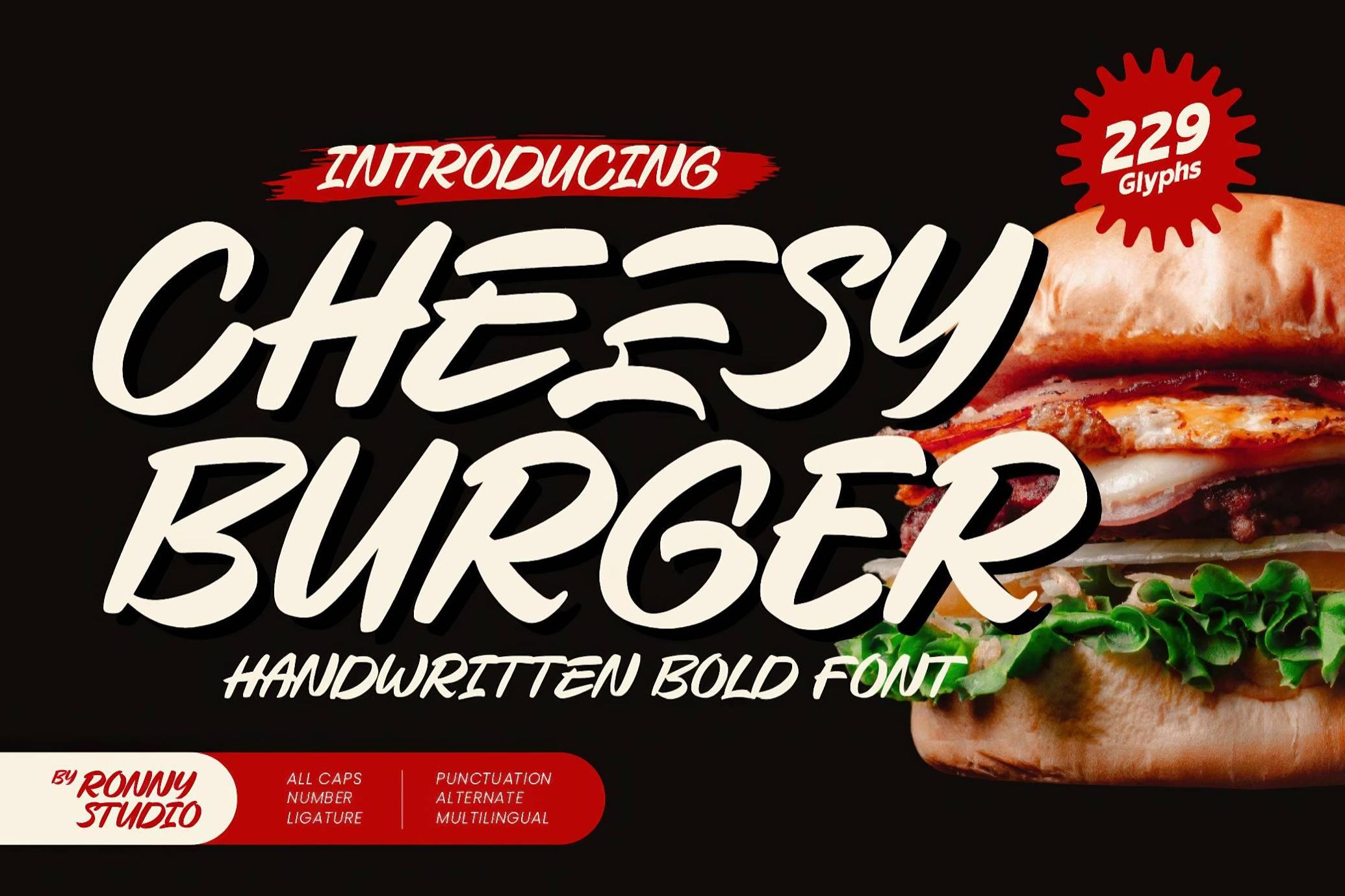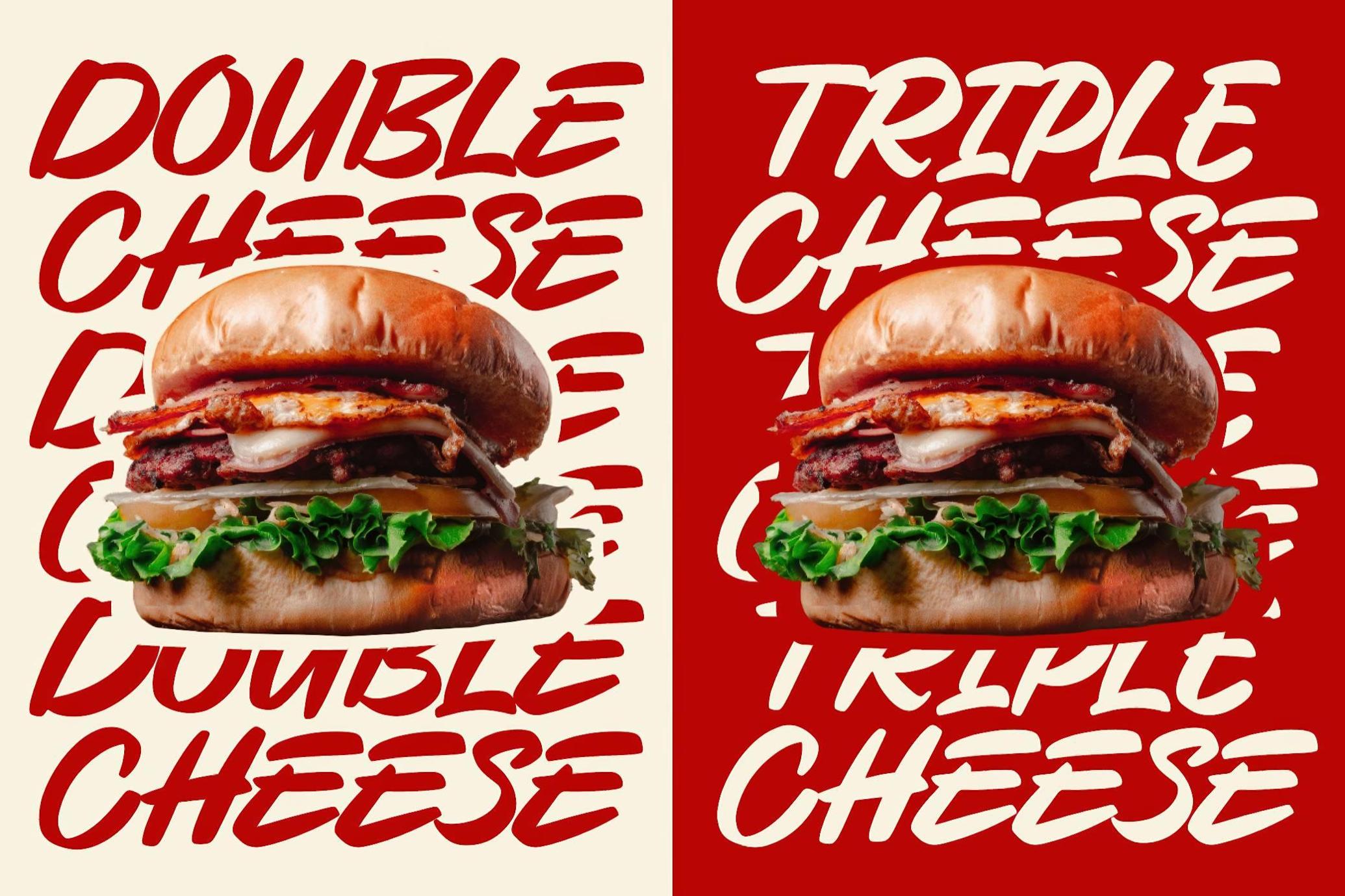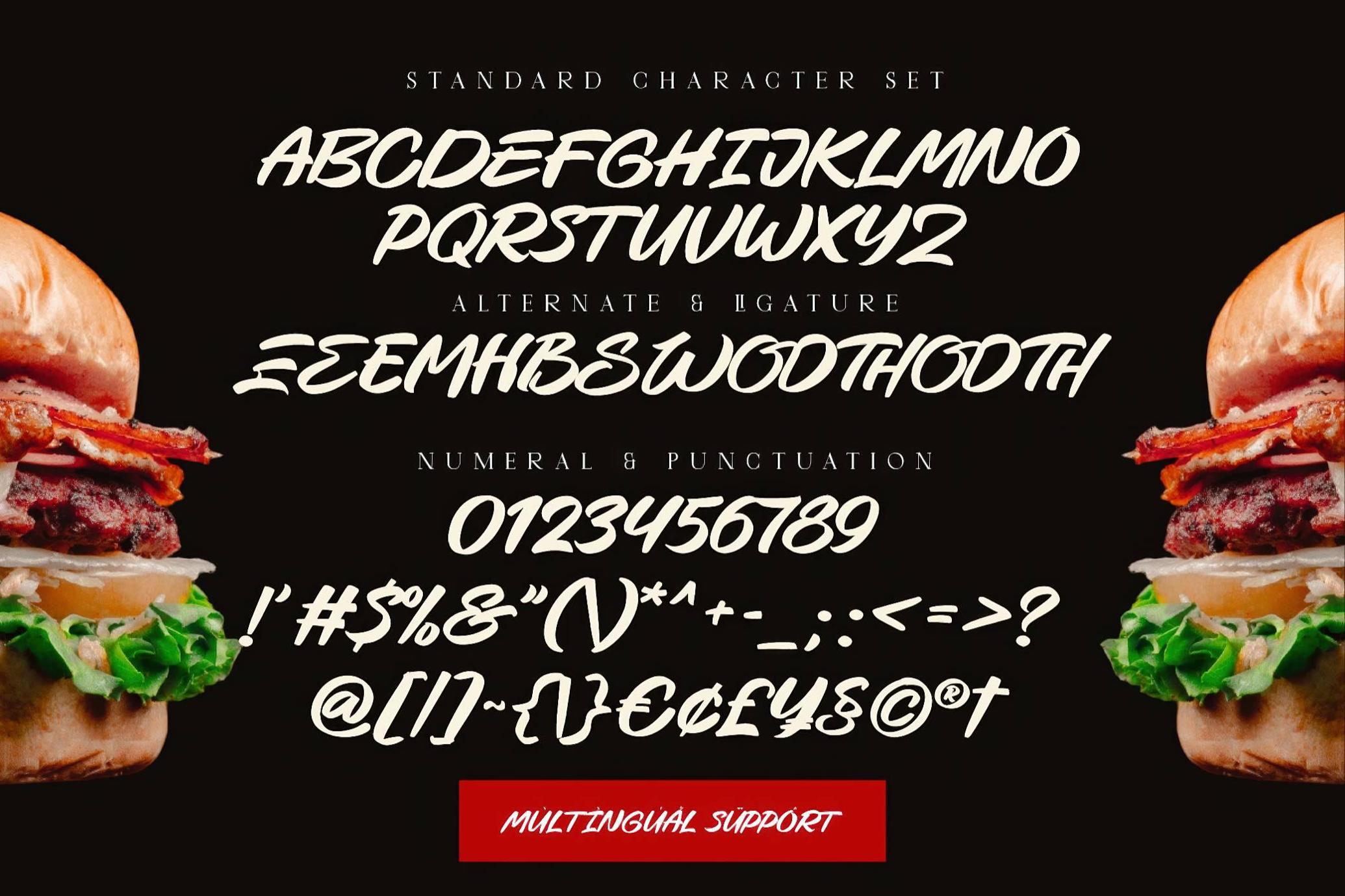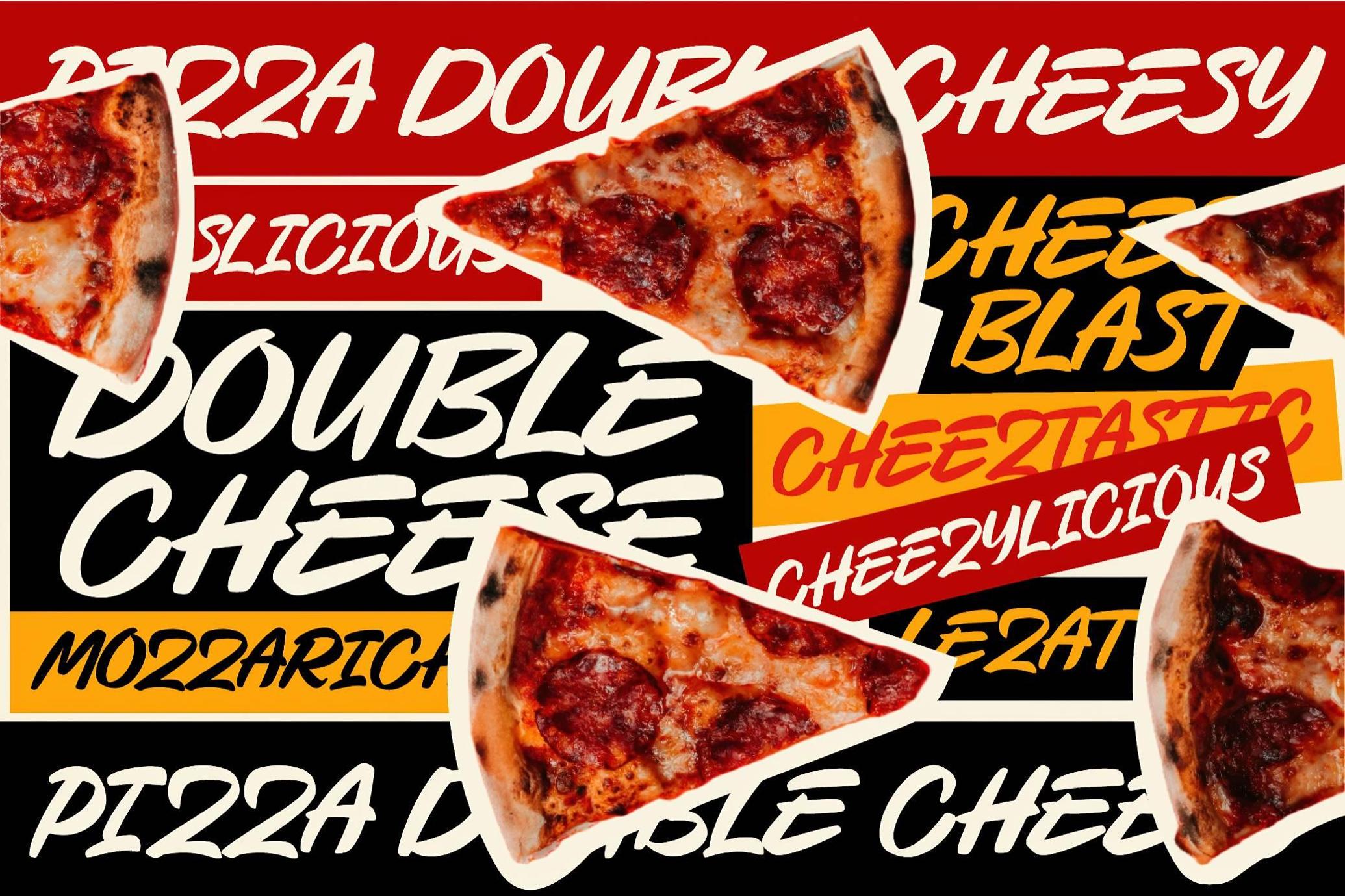
Cheesy Burger — Handwritten Bold Font
Cheesy Burger
The font is great for burger joints, casual food brands, snack packaging, street food trucks, or ironic poster design, it thrives where appetite meets attitude. It brings the same energy as a triple-stack ad in a 2000s food court — loud, hand-sauced, and everything but cheesy.
This all-caps handwritten font goes full tilt into greasy charm and graphic punch. Aside from the standard set of characters, the set includes alternates, ligatures, numbers, punctuation, multilingual support, and comes PUA-encoded for quick access.